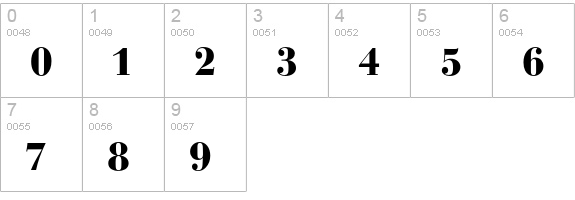
Bauer Bodoni D Bold Font Details
Bauer Bodoni D Bold is a strong, high-contrast variant in the Bauer typeface family \xE2\x80\x94 well suited to headlines, attention-grabbing titles, and strong calls-to-action.
Bauer Bodoni D Bold is a timeless and elegant typeface that exudes sophistication and class. With its bold strokes and delicate serifs, this font commands attention and makes a powerful statement. Perfect for headlines, logos, and branding materials, Bauer Bodoni D Bold adds a touch of luxury to any design project. The best part? Bauer Bodoni D Bold is available for free download at FontsMarket.com. Whether you're a designer looking to elevate your creations or a business owner wanting to stand out from the crowd, this font is sure to impress. Don't miss out on the opportunity to enhance your work with the beauty and versatility of Bauer Bodoni D Bold. Download it today and let your creativity soar.